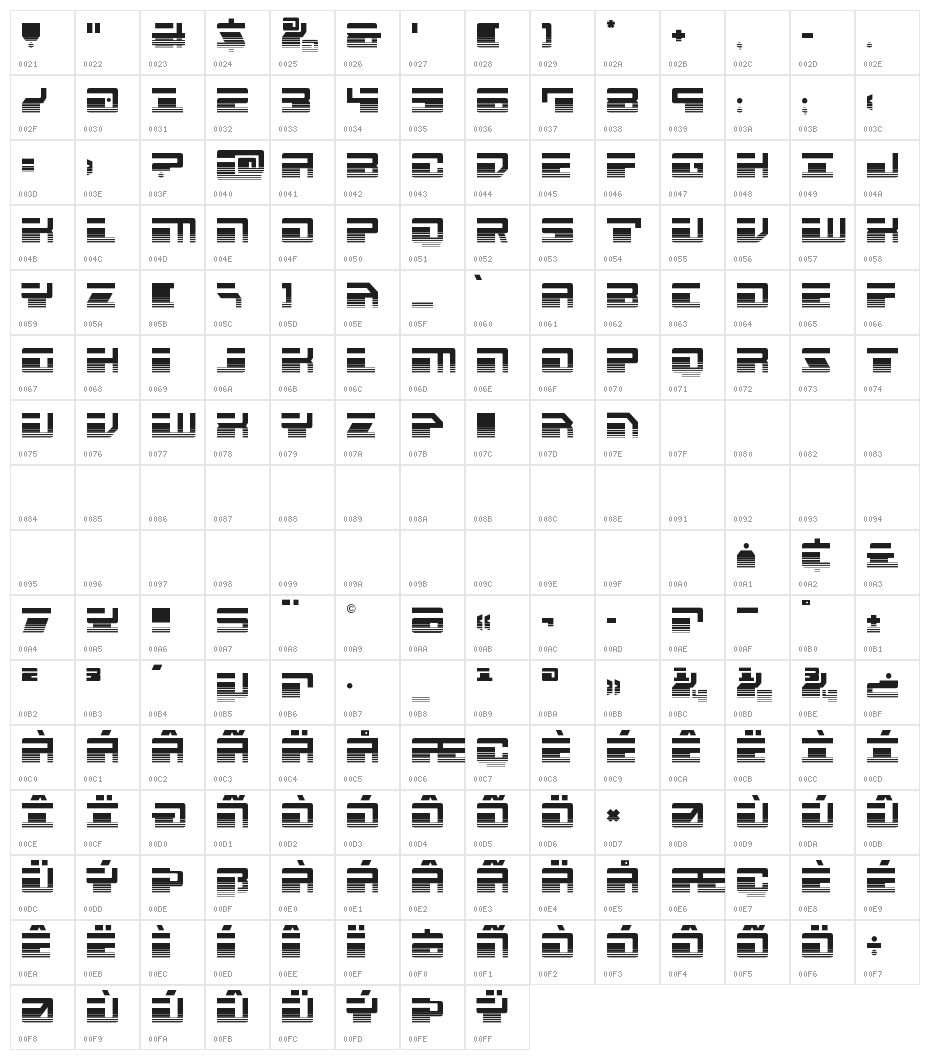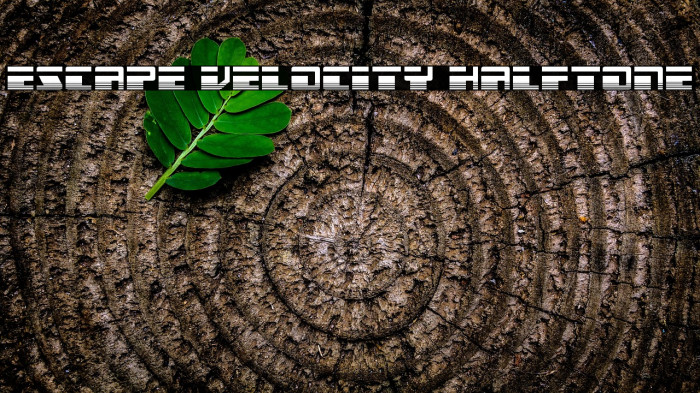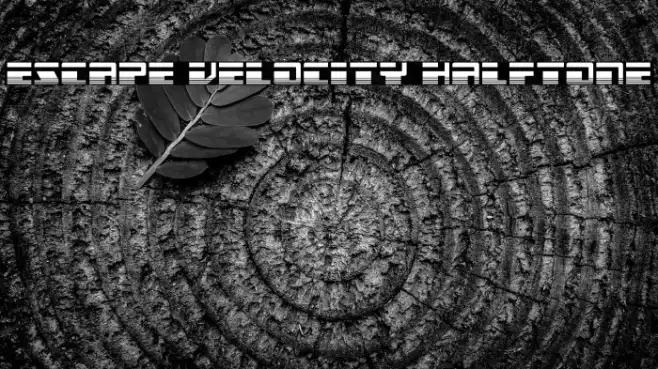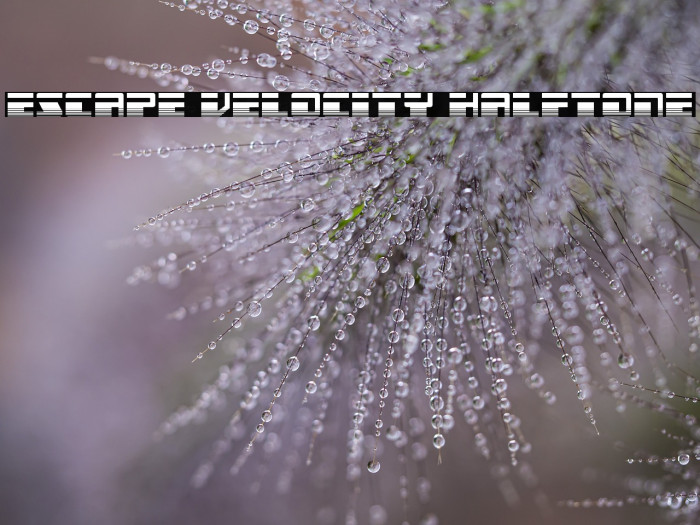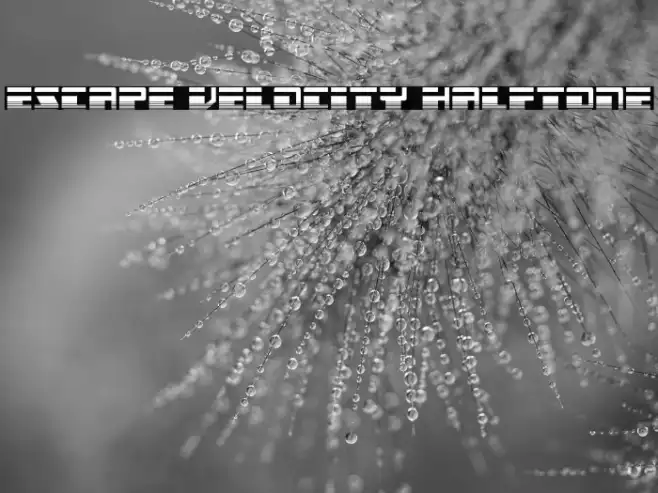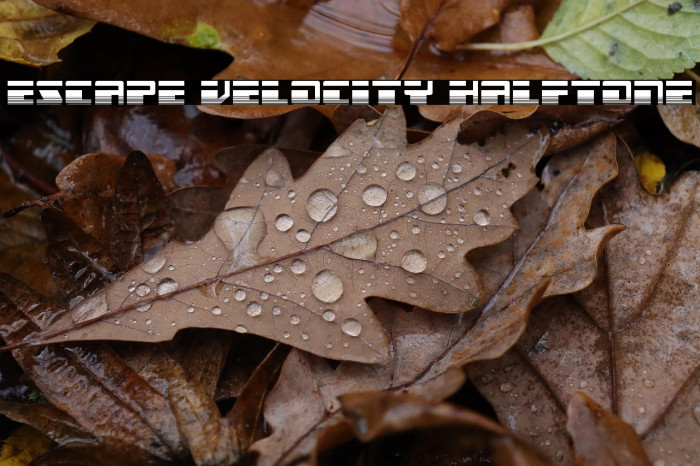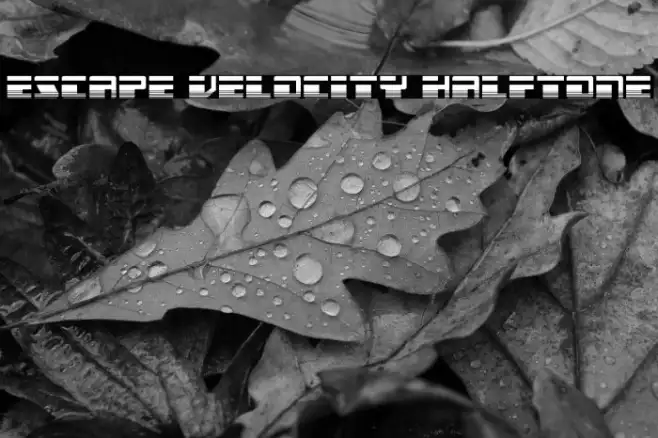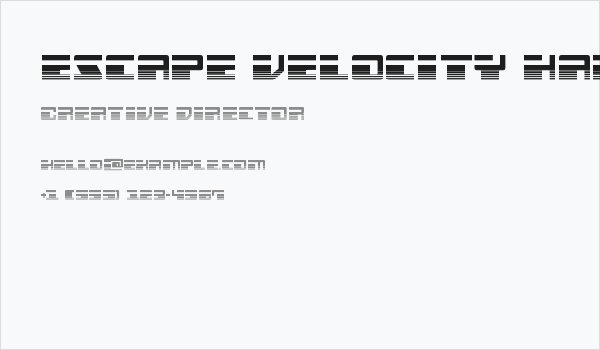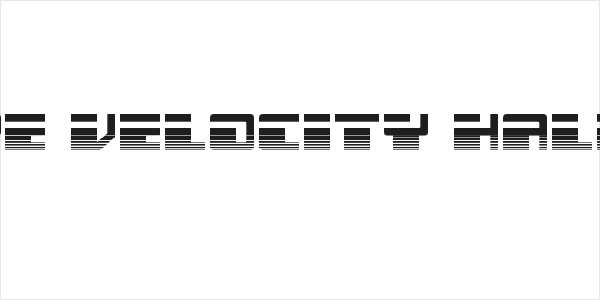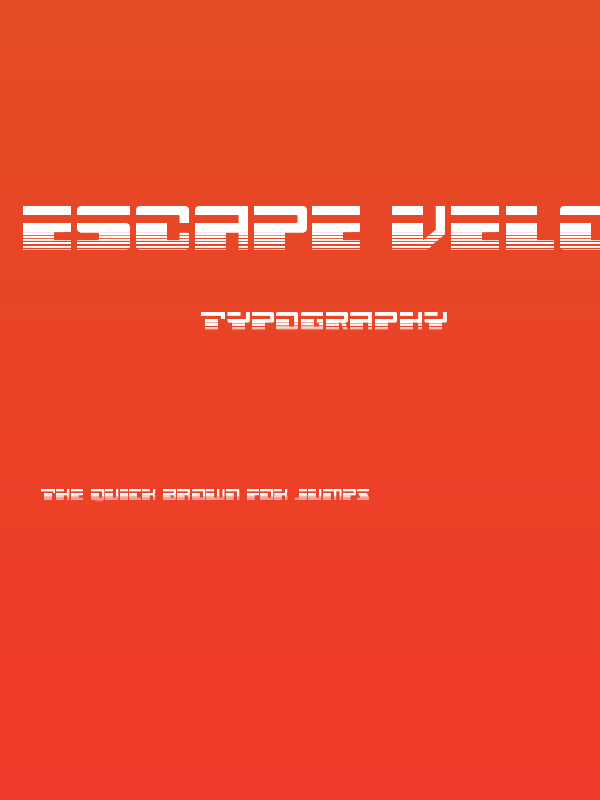
Escape Velocity Halftone Font
Escape Velocity Halftone Description
This font features a futuristic and dynamic design, characterized by its bold, geometric shapes and horizontal line patterns that create a halftone effect. The uppercase and lowercase letters share a consistent style, with each character appearing as if it's in motion, thanks to the horizontal lines that cut through the solid forms. The numerals and special characters maintain this theme, offering a cohesive look across all glyphs. The font's unique aesthetic makes it ideal for projects that require a modern and edgy feel, such as sci-fi themed designs, technology branding, or digital artwork. Its distinct appearance ensures that it stands out, making it perfect for eye-catching headlines or logos.
Proposed ProjectsIdeal for sci-fi designs, tech branding, digital art, and eye-catching headlines.